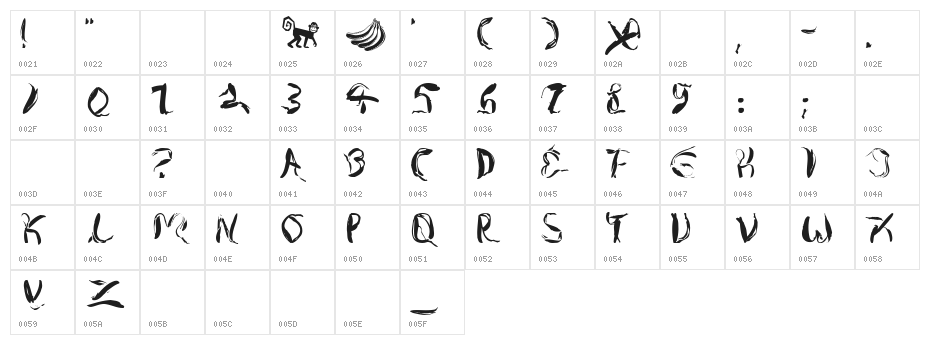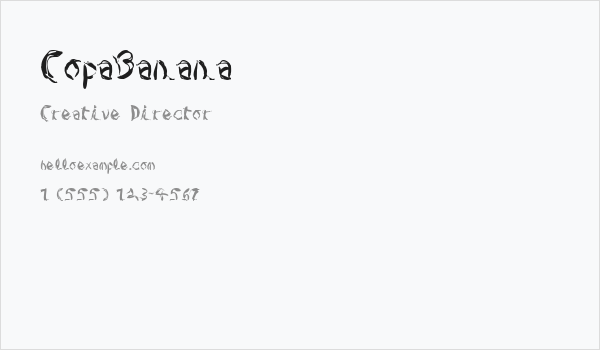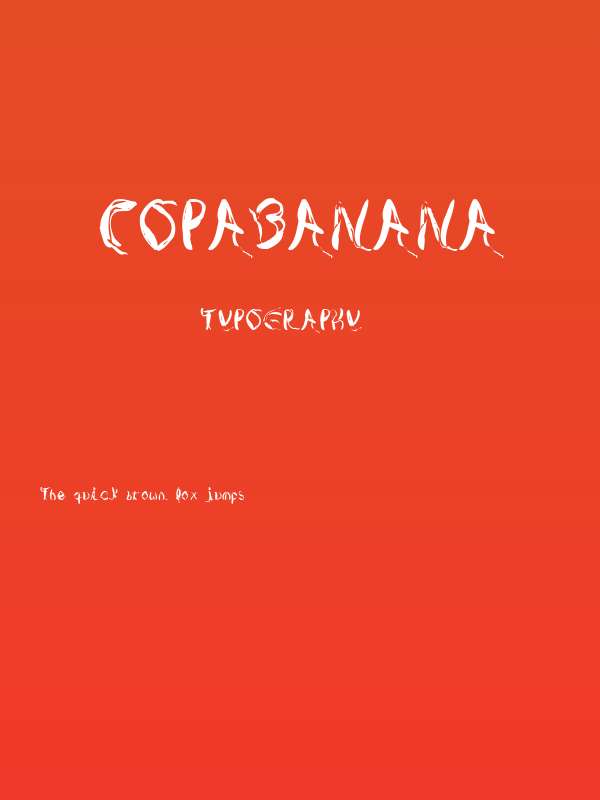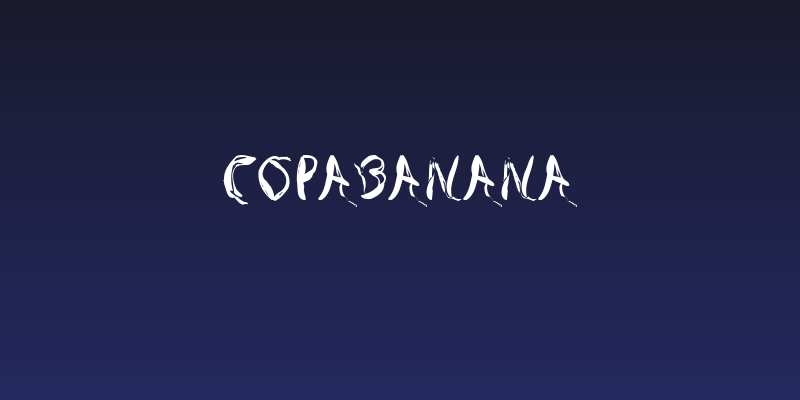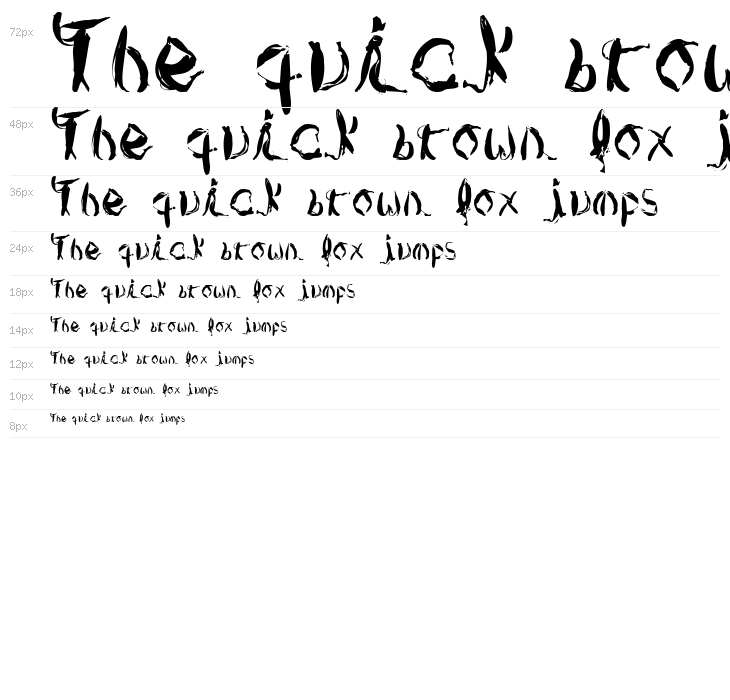
CopaBanana Font
CopaBanana Description
This font features a playful and artistic style, with each character appearing as if it has been painted with expressive brush strokes. The letters have a dynamic flow, with varying thickness that adds a sense of movement and energy. The uppercase and lowercase letters maintain a consistent style, while the numbers and special characters are equally creative, incorporating unique elements that enhance the overall whimsical feel. The font's design is reminiscent of hand-drawn calligraphy, with an emphasis on creativity and spontaneity. Its distinctive appearance makes it suitable for projects that require a touch of fun and originality.
| Overall Style | Artistic, Playful |
| Use Case | Logos, Posters, Creative projects |
| Proposed Projects | Ideal for creative projects such as children's book covers, playful branding, artistic posters, and event invitations. |